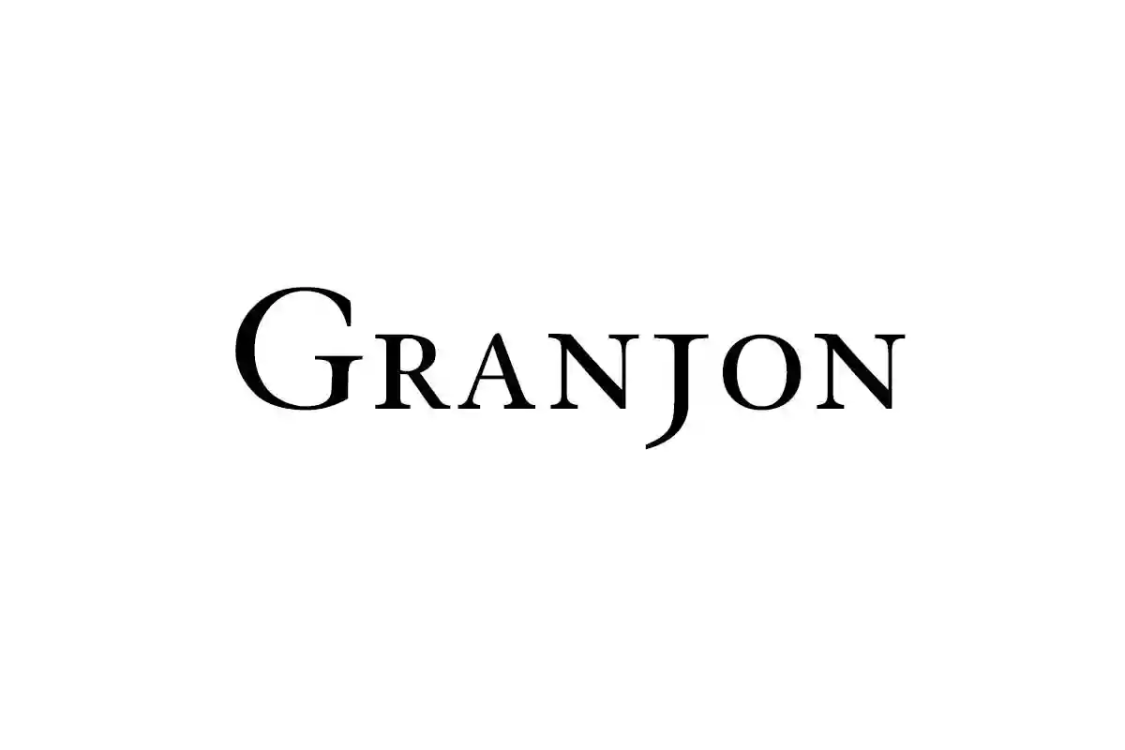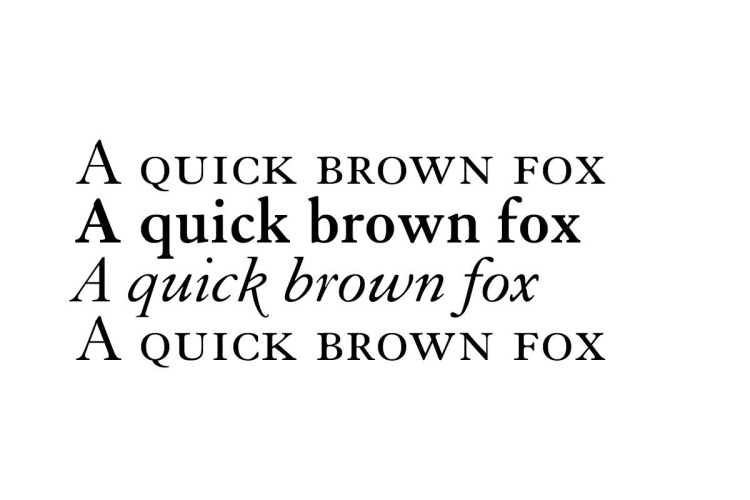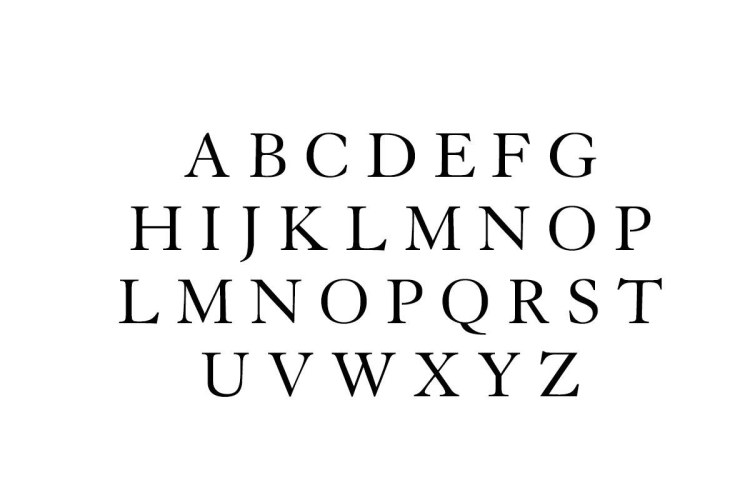
Granjon Font
Granjon font is a traditional serif typeface popular among design circles due to its appeal that stays attractive and ageless. It was coined after the man, the trendsetter Claude Garamond, a highly respectable French typo designer at the beginning of the 16th century. The versatility and capability to handle various design projects could be why the font is popular. Whether the font picked is serious or playful, it is essential to redirect your message towards your audience positively.
The Granjon font is far from a new invention because Claude Garamond created it in the 16th century. Garamond was one of the best people to punch cut and design typefaces that used these new features. He made them more suitable for the printing industry. He had a reputation for being attentive to details, exquisite in style, and perfect in perfection, which, for example, we can see in the Granjon font.
In the long run, the Granjon typeface has developed and been modified to suit graphic design and technology trends. Numerous changes have been introduced to broaden the font range, where the font has its peculiarities and differences every time. Still, it cannot be denied that, under time’s influence, the original character of the Granjon font has kept its unchanged form. Hence, it remains a choice for timeless and phenomenal designers.
Granjon is characterized by its tea elegance in the tops of the letters and its unusual shapes. The serifs are small design elements that kick out from the end of each character, conveying this font with a traditional and elegant feeling. Create a poll asking for feedback on design options, such as varying images, background colours, wording, or stock photos. Inquire about their preferences, including any suggestions or recommendations for improvement. There are equal relations between the size of the characters and the amount of thick and thin movement, ensuring good readability even when zoomed out.
Although the Granjon font is also versatile, it offers many distinct features. It can be employed in various creative artworks, from producing books and magazine magazines to websites and social media platforms. Its timeless crossover could also be used in traditional or modern design styles.
The Granjon font is mainly used in various projects that undertake the process of designing. It is mostly demanded by the publishing industry and is used as a book cover, chapter headings, and body text. Its readability and traditionalness make it perfect for long-form reading materials.
Furthermore, the Granjon font could be used for publishing or promoting a brand or a design project. Its tasteful and timeless look helps upgrade a brand’s reputation, thus adding a feeling of luxury and elegance. Whether on the logo, package, or marketing materials, the Granjon font adds that essential touch of elegance that passers-by notice and stay impressed with for longer.
Granjon is a serif typeface created by Claude Garamond in the second half of the 16th century. Garamond is named after Robert Granjon, a French typographer associated with the Garamond family of typefaces.
Granjon font comes in various styles, such as regular, italic, bold, and bold italic. It also features a broad weight spectrum, from light to extra bold.
Granjon font entered the world as the brainchild of Claude Garamond in the 16th century. Finally, it was revived by Robert Granjon, who improved the original pattern. Once is the font used in different publications, including books, magazines and newspapers.
Granjon typeface has a unique, delicate, classical design with its thin and slender serifs. Its x-height is relatively large, making it easily readable even at small sizes. The font also has a range of ligatures and alternate characters, making it suitable for various occasions.